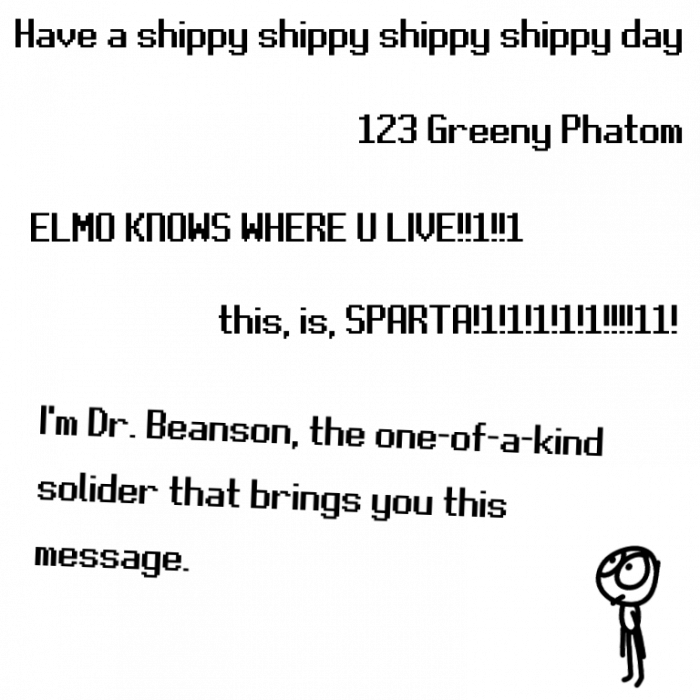
• If MegaHard were to exist back in the 1970's/1980's, this was the font it would use.
Only uppercase Greek plus two lowercase Greek glyphs. Sorry, Greeks.